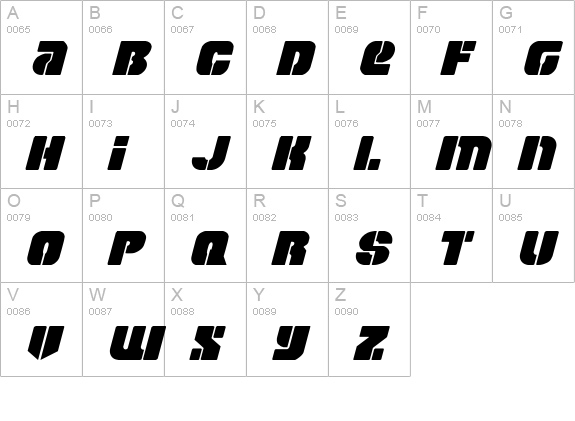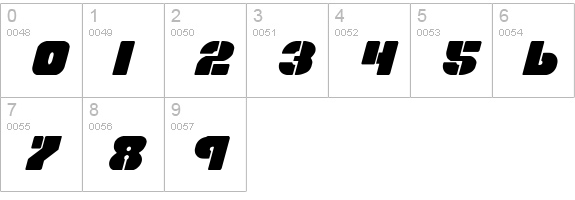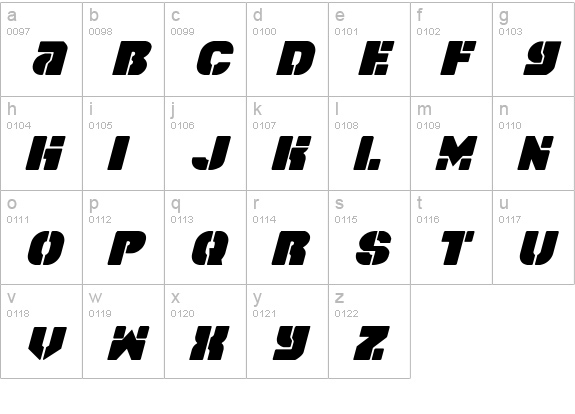
Space Cruiser Italic Font Details
Space Cruiser Italic is a distinctive, italic variant in the Space typeface family \xE2\x80\x94 well suited to design and typography projects.
Introducing Space Cruiser Italic, a captivating and futuristic font that pushes the boundaries of typography. This font effortlessly merges sleekness with a hint of otherworldly charm, making it the perfect choice for projects that demand a touch of cosmic elegance. Space Cruiser Italic boasts a unique blend of sharp lines and subtle curves, creating a mesmerizing visual experience. Its italicized form adds an extra layer of dynamism, giving your designs a sense of motion and forward-thinking energy. Whether you're designing a sci-fi book cover, a space-themed poster, or a cutting-edge website, Space Cruiser Italic will elevate your creations to new celestial heights. But what makes Space Cruiser Italic truly out of this world is that it's not only visually stunning but also freely available to download. Yes, you read that right! This font can be accessed at no cost on FontsMarket.com, allowing designers, artists, and creatives of all kinds to explore the endless possibilities it offers without breaking the bank. With Space Cruiser Italic, you can unlock a universe of design potential. Its versatility allows it to effortlessly adapt to various projects, from branding and advertisements to social media posts and beyond. Let your imagination soar and experiment with different sizes, colors, and textures to create truly captivating visual experiences. So, why settle for ordinary when you can explore the extraordinary? Embrace the future of typography with Space Cruiser Italic, the freely available font that propels your designs into uncharted cosmic territories. Download it today at FontsMarket.com and prepare to embark on an interstellar design journey like no other.